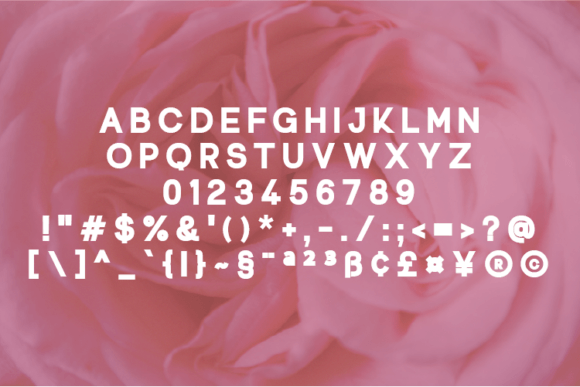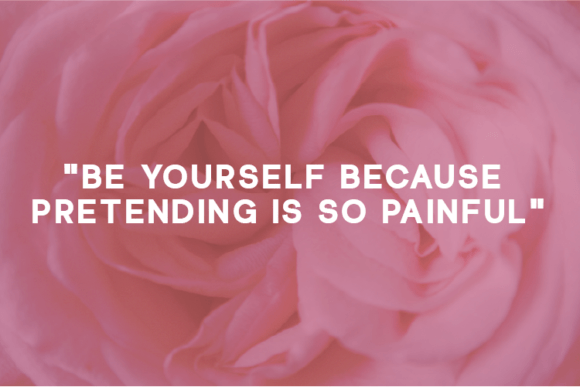
Introduction to Loveable Font
Loveable is a cool sans serif font that is versatile and looks great in just about any context.
With smooth and clean lines and just a touch of contrast, Loveable works beautifully for logos, branding, and web headings .
Key Features of Loveable Font
Why Choose Loveable Font?